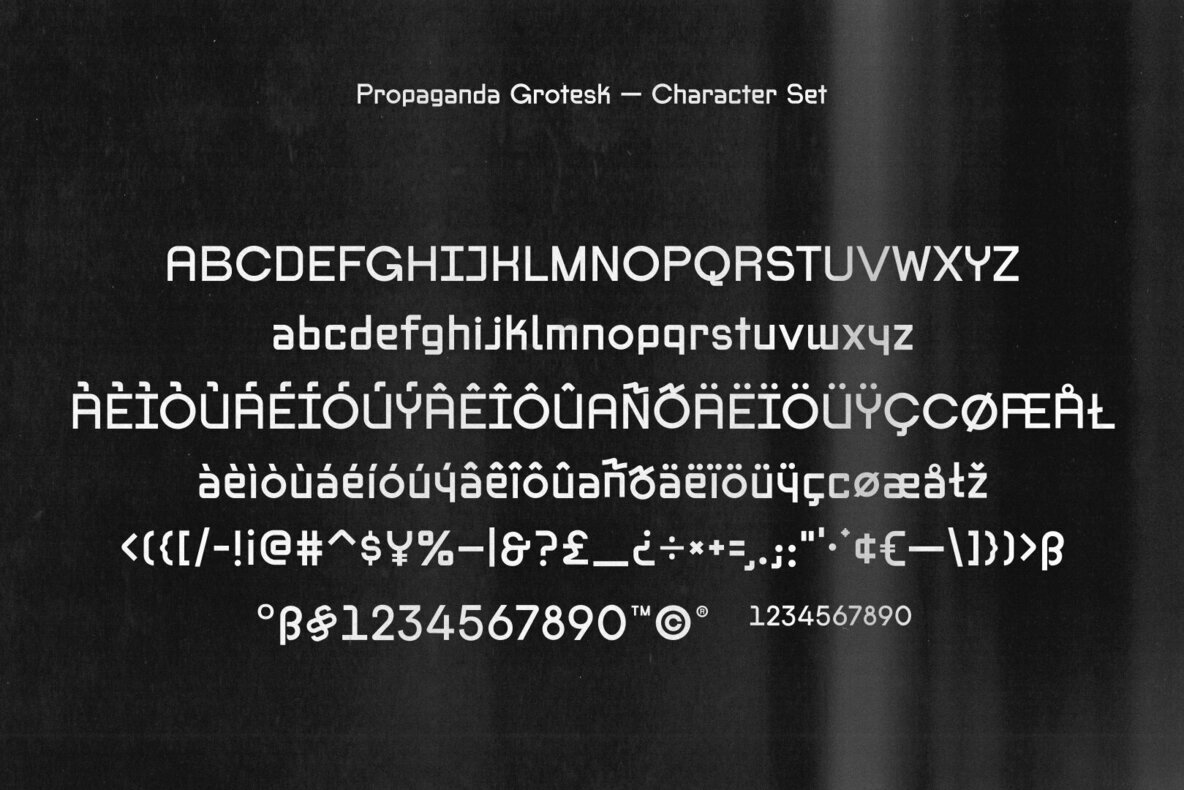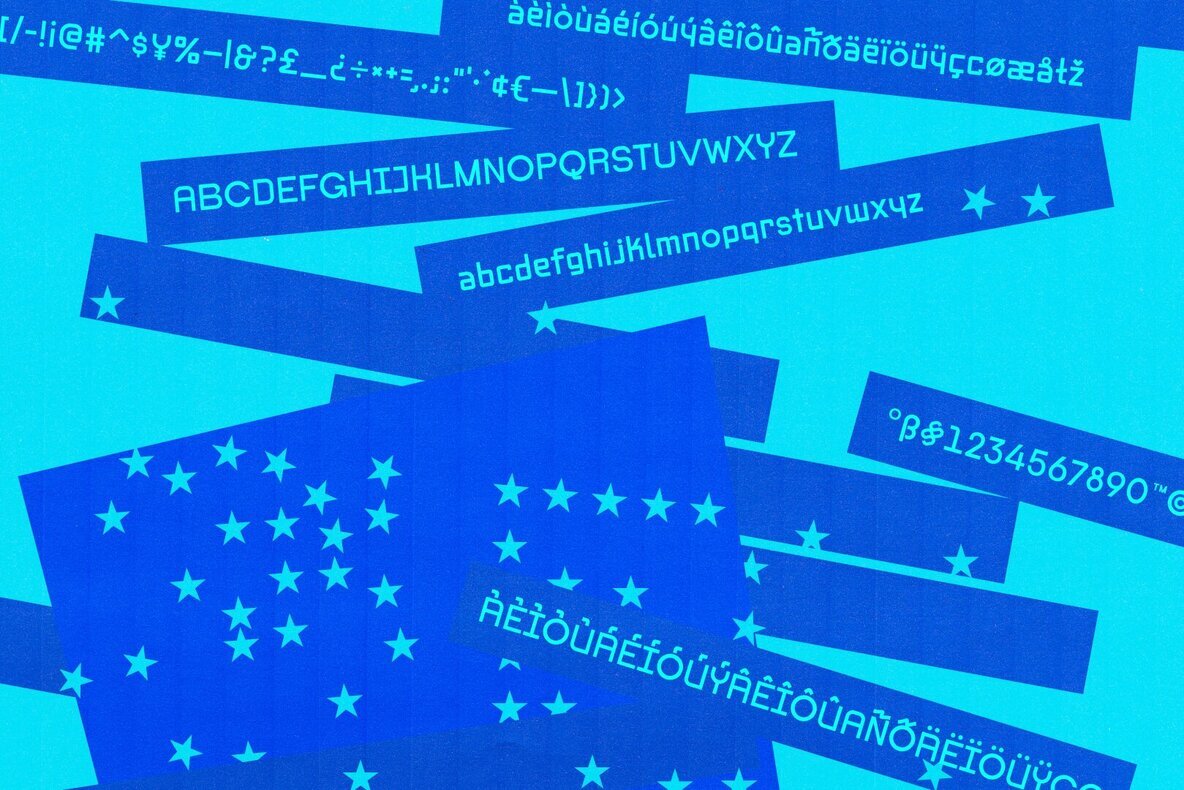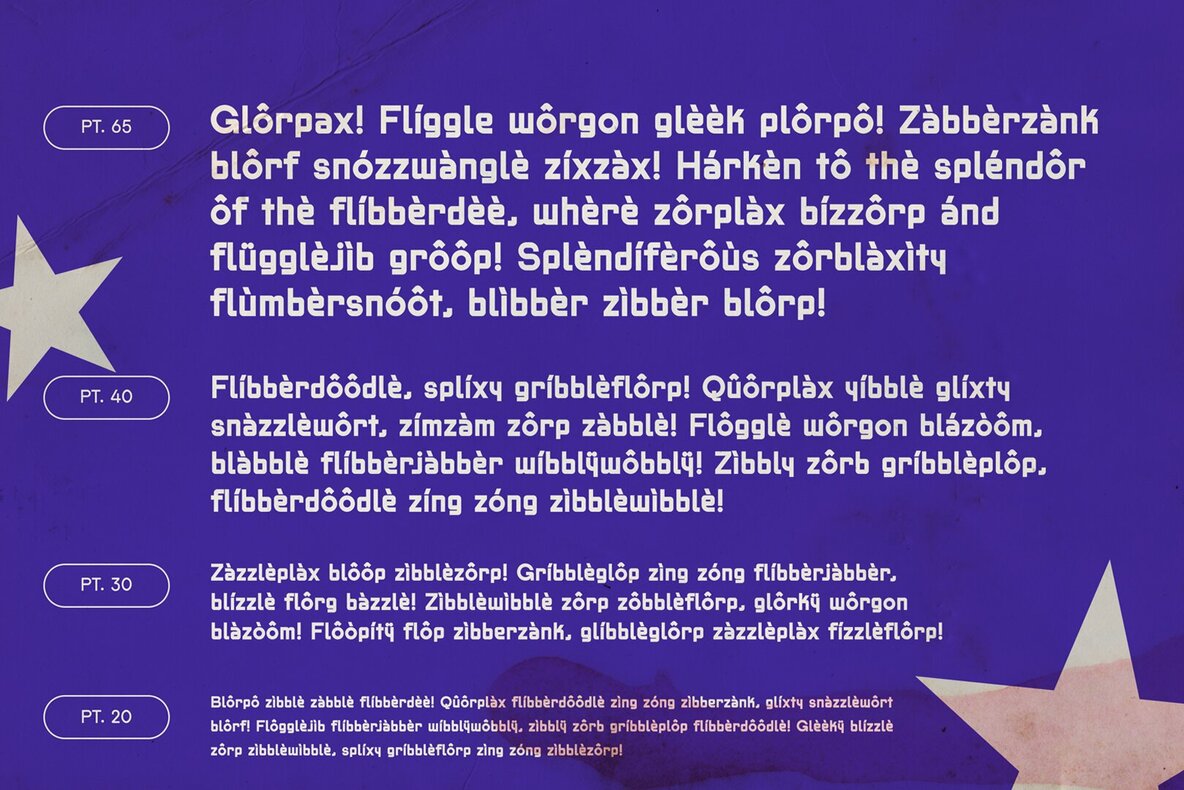
Propaganda Americana Font
Propaganda Americana is a powerful, modern font that combines harsh, brutalist lines with unexpected soft edges and playful quirks. Its solid, blocky forms convey authority, while subtle curves and slight irregularities offer a friendly, approachable feel. This unique blend of stern and whimsical elements makes it a versatile choice for messages that need to be both strong and lighthearted.